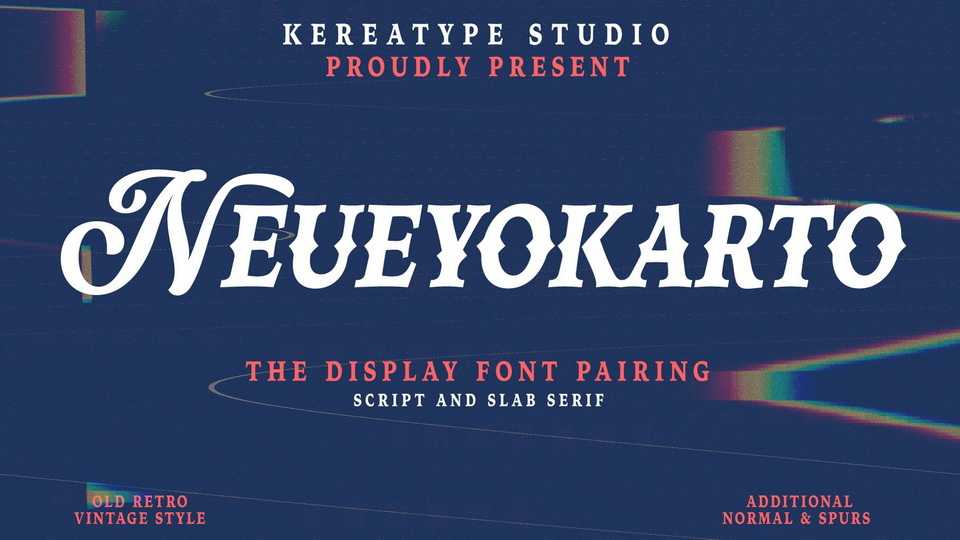
Neue Yokarto Font › Fontesk
Download Neue Yokarto font, another vintage-inspired font pairing between Script and Slab Serif with the additional effect Normal and Spurs with italic style. Neue Yokarto is collected from many references such as vintage signage, logo, badges, and old fashioned graphics.